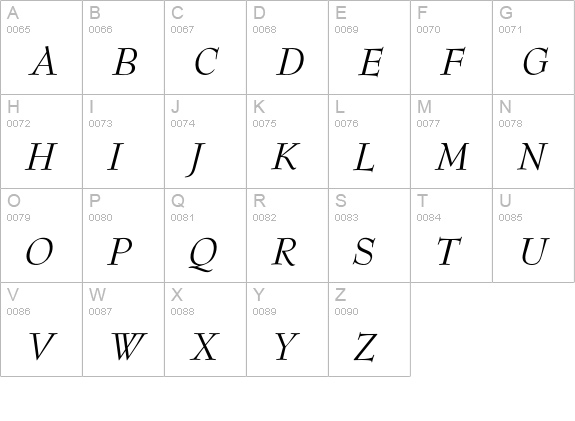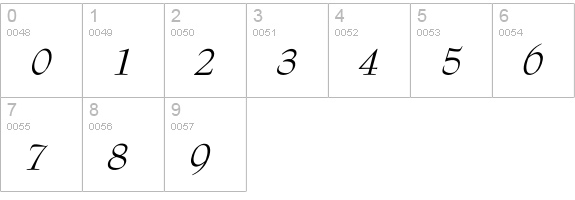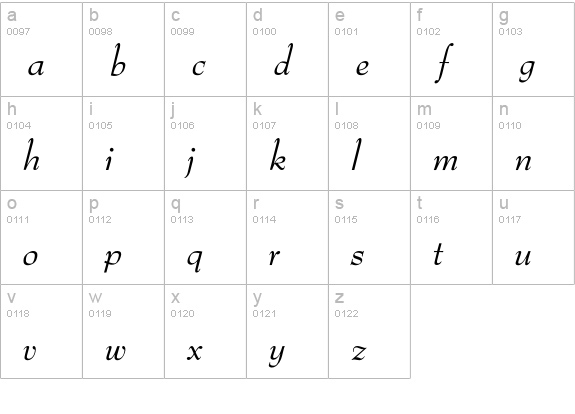
OPTIBenjieModern-Italic Font Details
OPTIBenjieModern-Italic is a distinctive, italic variant in the OPTIBenjieModern typeface family \xE2\x80\x94 well suited to design and typography projects.
OPTIBenjieModern-Italic is a sleek and sophisticated typeface that exudes elegance and modernity. Its italicized design adds a touch of flair and style to any text, making it perfect for use in branding, advertising, or editorial design projects. The clean lines and subtle curves of this font make it highly legible and versatile, suitable for a wide range of applications. What sets OPTIBenjieModern-Italic apart is that it is available for free download at FontsMarket.com. This means that you can easily access and use this high-quality font without any cost, making it a valuable resource for designers and creatives looking to enhance their projects with a touch of sophistication. Whether you're working on a print or digital design, OPTIBenjieModern-Italic is sure to elevate your work with its unique style and professional appeal.